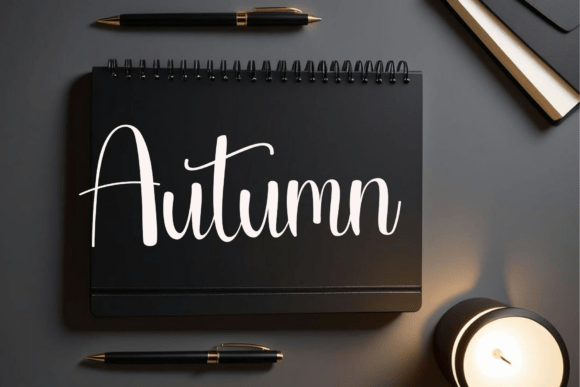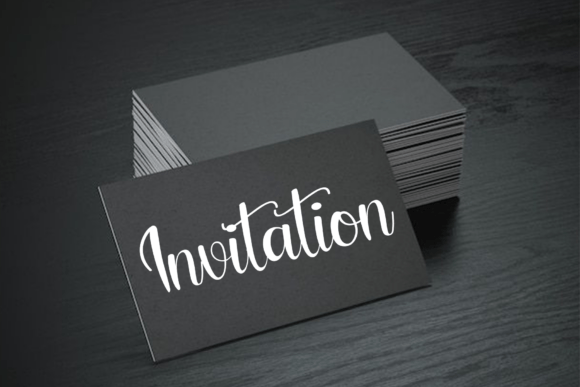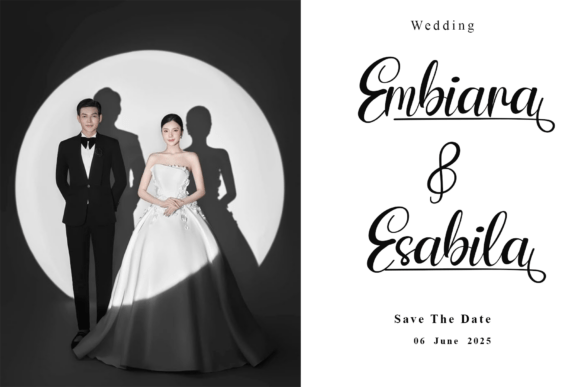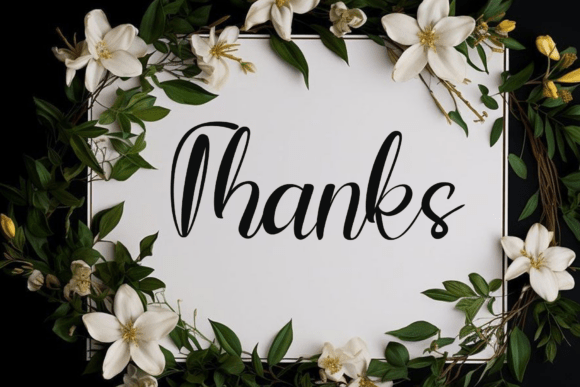
The Perfect Font for a Memorable Touch
Have you ever stumbled upon a design that left you speechless, wondering how the creator managed to convey such emotion through a single letter or word? For designers, this is the ultimate goal – to craft a visual message that resonates with the audience. And, for many of us, the key to achieving this lies in the right font choice.
Enter the Charming Font, a beautifully elegant handwritten font that embodies the essence of sophistication and style. Its flowing, graceful letters are a perfect fit for designs that demand a touch of personality and flair. Whether you’re crafting an invitation, building a brand, or working on a project that calls for a personal, stylish touch, this font is sure to impress.
Charming Font Key Features
- Font Family: Charming Font offers a range of 6 font styles, including Regular, Italic, Bold, Bold Italic, Light, and Light Italic.
- Unique Characteristics: Charming Font features a unique, hand-drawn design with a mix of modern and vintage elements, making it perfect for creative projects and designs that require a touch of elegance.
Charming Font Review
Overall, I found the “Charming Font” to be a delightful addition to any design project. The whimsical feel and elegant lines make it perfect for creating a sense of warmth and approachability.
Here are some of the things that work well with this font: ✨
- Beautiful, flowing lines that add a touch of sophistication to any text.
- Wide range of weights and styles to suit any design need.
- Works particularly well for titles and headings, where it can add a sense of drama and flair.
However, I did encounter some limitations with this font: ⚠️
- May be difficult to read at very small font sizes, due to the intricate details.
- Not ideal for use in body text, where a more straightforward font may be preferred.
Overall, I would recommend the “Charming Font” for any design project where you want to add a touch of elegance and whimsy. While it may have some limitations, it’s a great choice for titles, headings, and other design elements where you want to make a statement.
Tips for Getting the Most Out of Charming Font
Use Charming Font for titles, headings, and other emphasis text to add a touch of elegance to your designs. Experiment with different font sizes and colors to create visual interest. Pair Charming Font with other fonts to create a unique and sophisticated look.
Use Charming Font for:
- Business cards and marketing materials
- Food and beverage branding
- Artistic and creative projects
Alternatives to Charming Font for Designers
Lato is a modern sans-serif font designed by Łukasz Dziedzic. It’s perfect for use in digital products, websites, and apps where a clean and legible font is required. Lato is more versatile than Charming Font and can be used for both body text and headings.
Comparison: Lato is a more neutral font compared to Charming Font, which has a more elegant and vintage feel. Lato is also more readable on various devices and screen sizes.
Arimo Font
Arimo is a sans-serif font designed by Steve Matteson. It’s ideal for use in digital products, websites, and apps where a clear and concise font is required. Arimo is more geometric and modern compared to Charming Font, making it suitable for tech-related projects.
Comparison: Arimo is more modern and geometric compared to Charming Font, which has a more classic feel. Arimo is also more suitable for use in digital products and websites, while Charming Font is better suited for print materials.